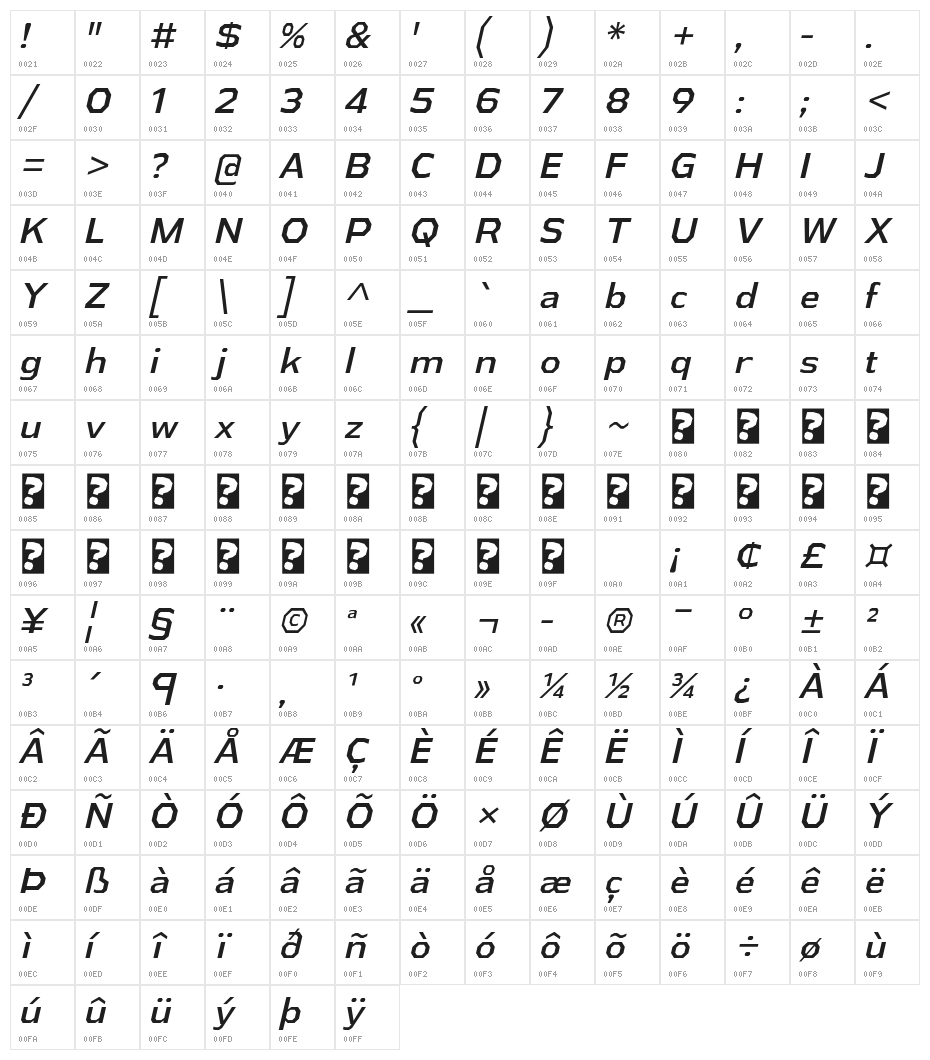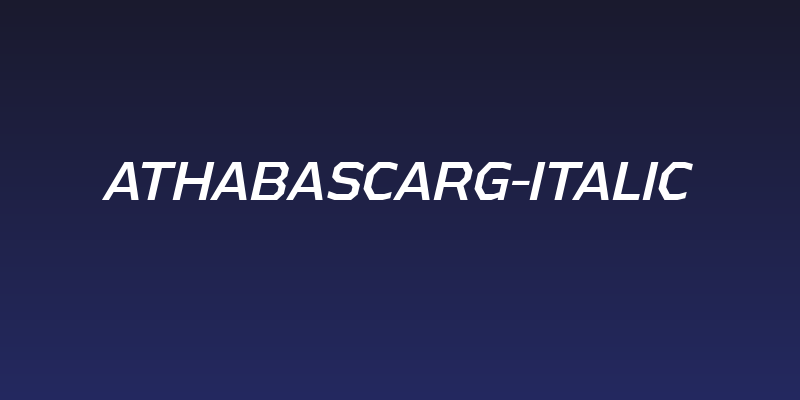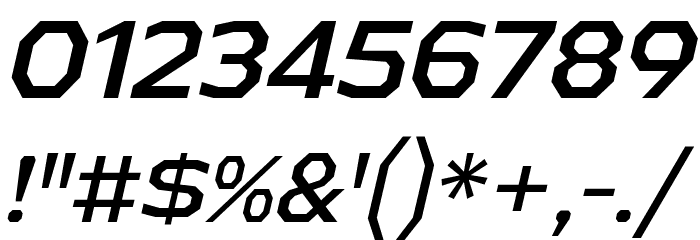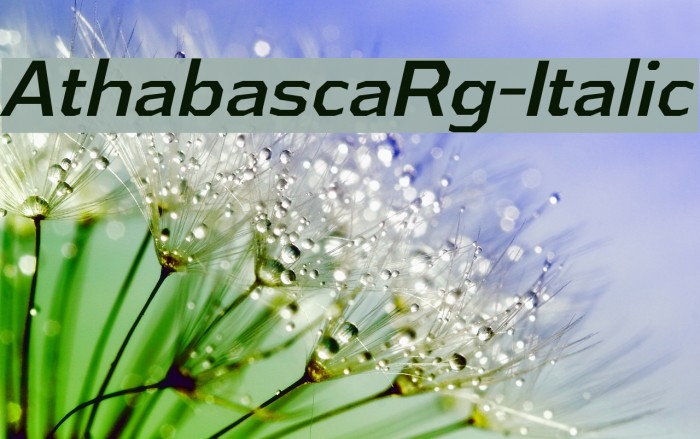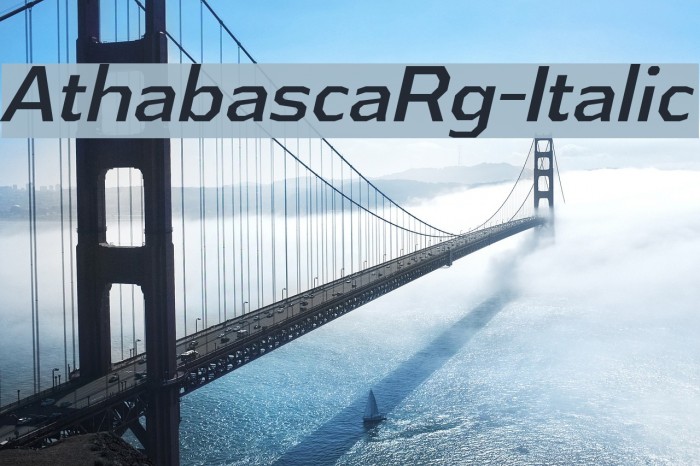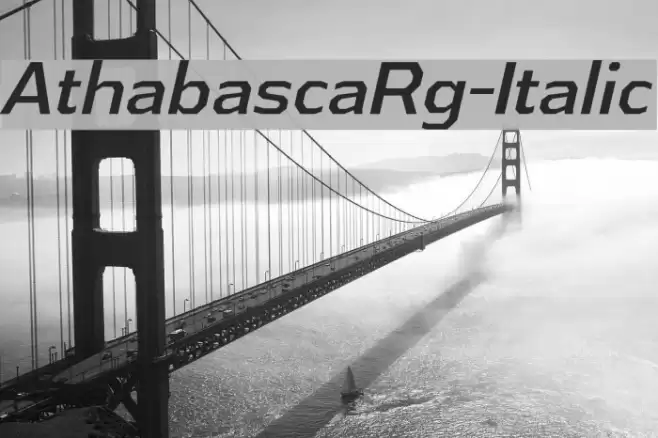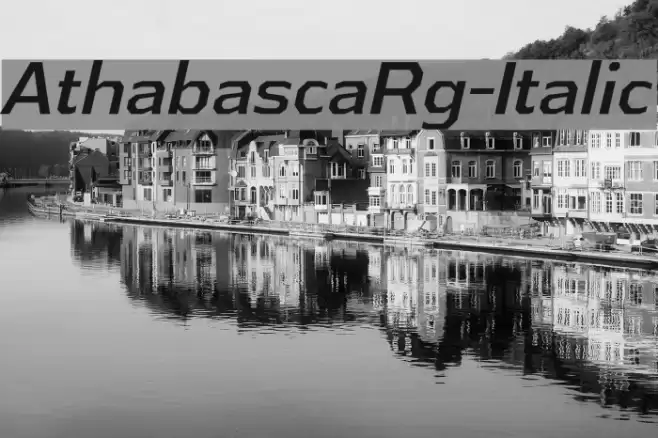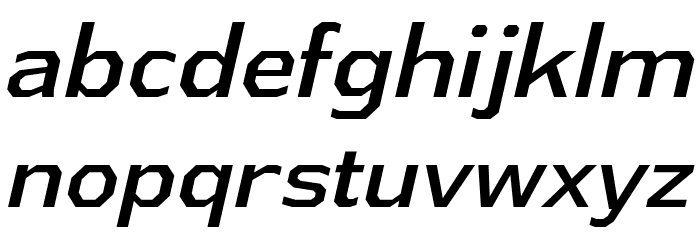
AthabascaRg-Italic Font
AthabascaRg-Italic Description
This font features a dynamic and modern italic style with a distinct slant, giving it a sense of motion and energy. The characters are well-defined with sharp edges and a geometric structure, making it suitable for contemporary design projects. The uppercase and lowercase letters maintain a consistent style, while the numerals and special characters are clearly legible. The overall appearance is sleek and professional, ideal for making a bold statement.
| Use Case | Headlines, Logos, Branding |
| Proposed Projects | Ideal for branding, advertising, and editorial design where a modern and energetic feel is desired. |